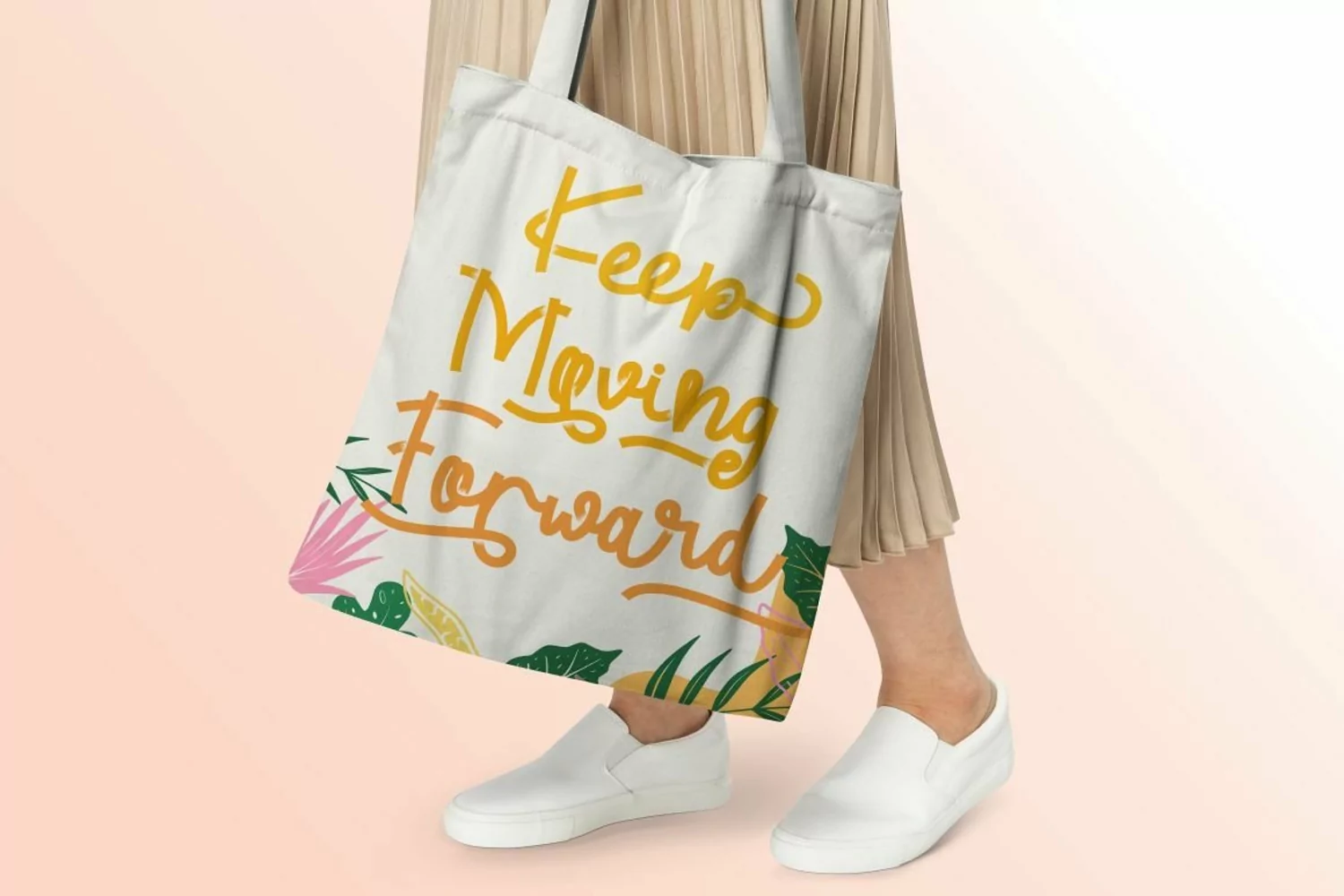
Tropical Beauty - Quirky Display Script Font. Tropical Beauty is a charming and sweet new hand-lettered font
And this font for casual type in greeting cards, illustrations, quotes, quaint branding, book covers, children's books, packaging and so much more